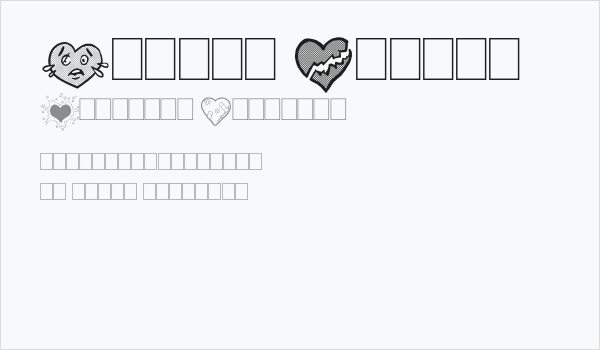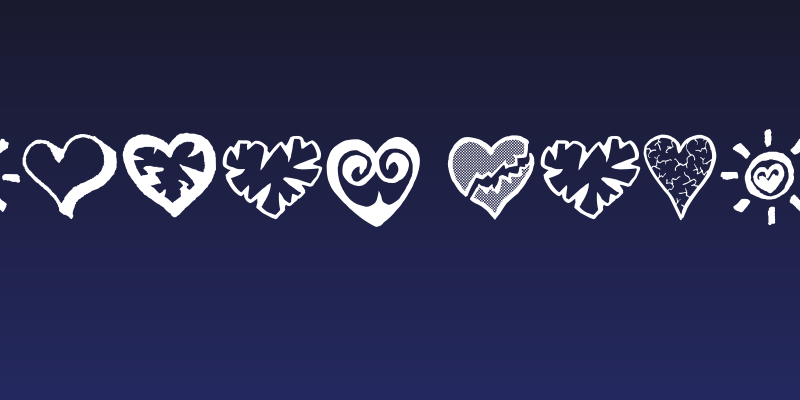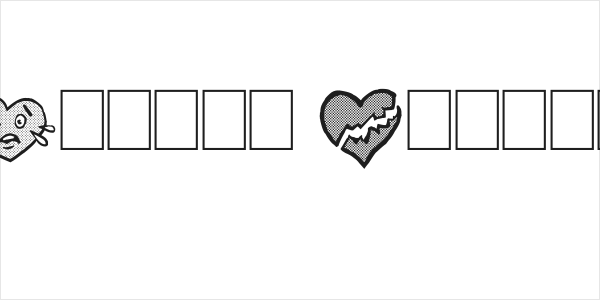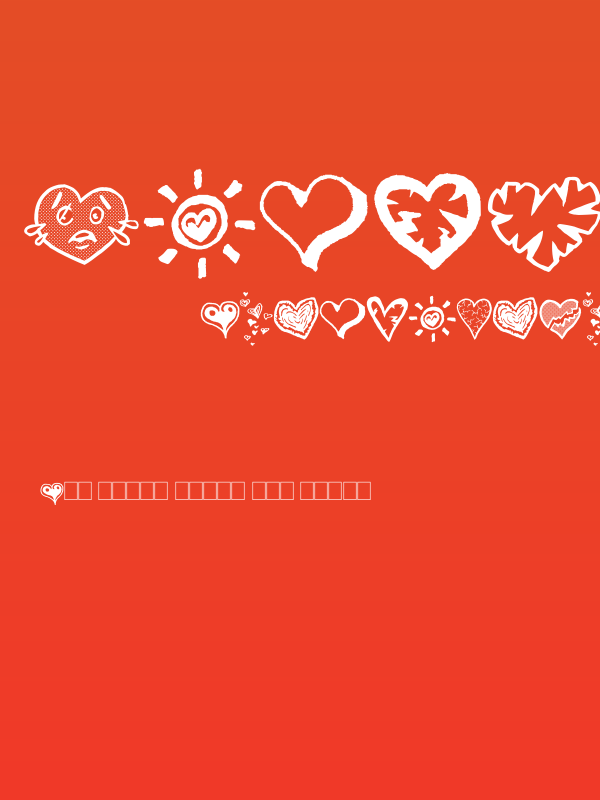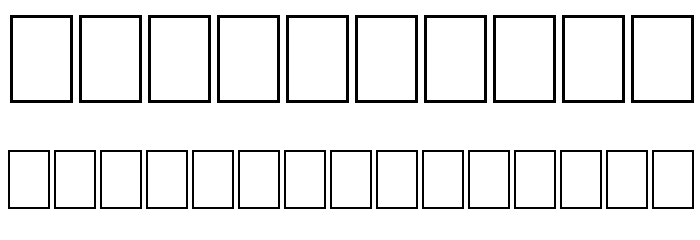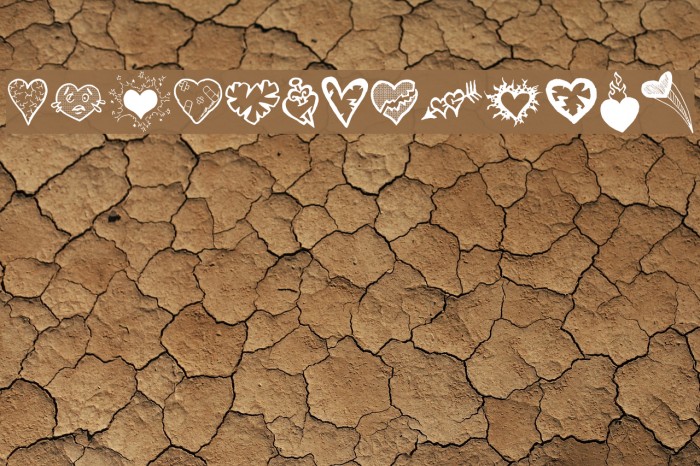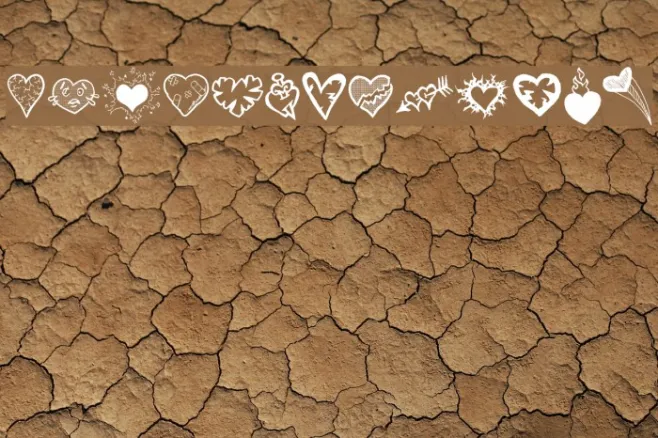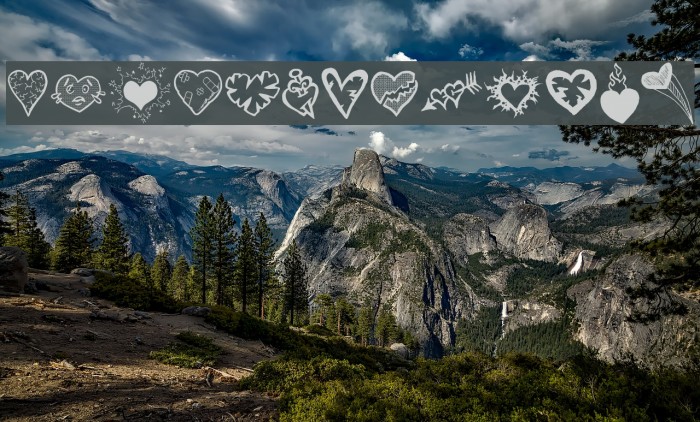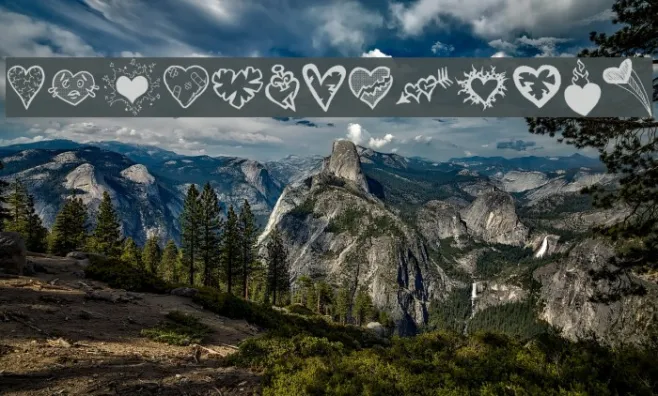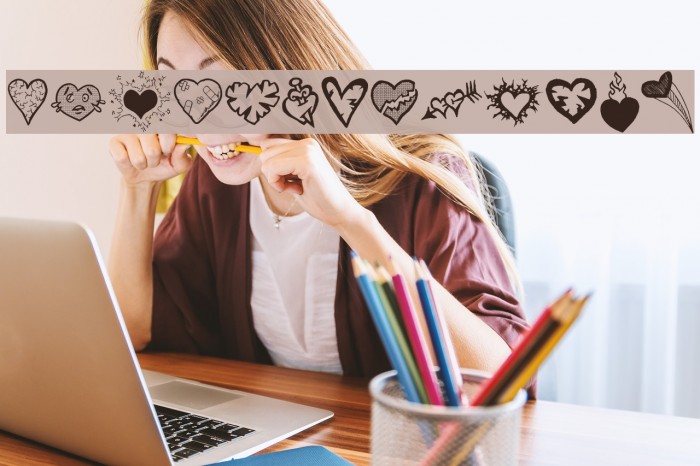
Broken Hearts Font
Broken Hearts Description
A playful and decorative collection of hand-drawn heart illustrations, each with unique embellishments such as cracks, flames, flowers, and whimsical patterns. The style is sketchy and expressive, with varying line thickness and a casual, doodle-like appearance.
| Overall Style | Decorative, Playful, Whimsical |
| Use Case | Decorative elements, icons, embellishments |
| Proposed Projects | Greeting cards, Valentine's Day designs, scrapbooking, stickers, playful branding, social media graphics. |